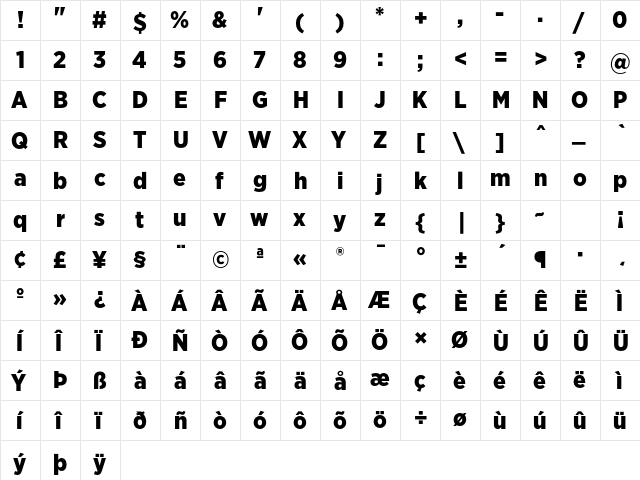
Gotham Narrow Black
| Foundry | Hoefler & Frere-Jones |
| Designer | Hoefler & Frere-Jones |
Design Context for Gotham Narrow Typeface
Gotham Narrow is a composed and adaptable typeface that performs quietly and consistently across a wide range of design contexts. Its narrow stance lets it pack a punch even in space-constrained designs.